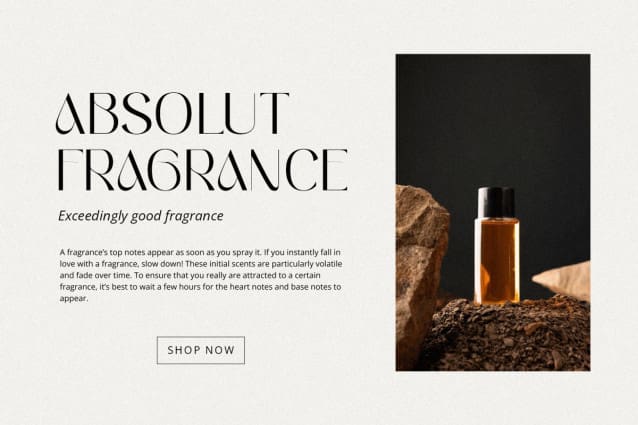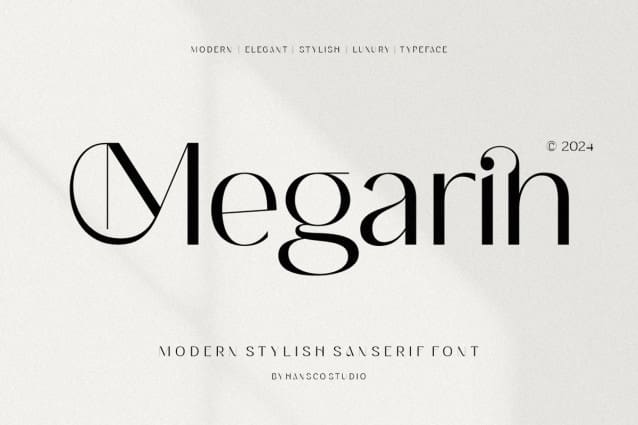
Megarin Font
Megarin Font is a classy display serif font with unique look that is perfect for multipurpose projects. Inspired by the concept of romantic vibes and made it into a modern yet luxury style. This font is also looks elegant and will fit well in any design and very recommended for logo, crafts, posters, books, branding, quotes, print templates, packaging, invitations, product labels, advertising, wedding project and more. This typeface comes in uppercase, lowercase, with punctuation, symbols, numerals, ligature and stylistic alternates. This font is PUA encoded which means you can access all of the charming glyphs and swashes with Character Map on Windows or Font Book on Mac.